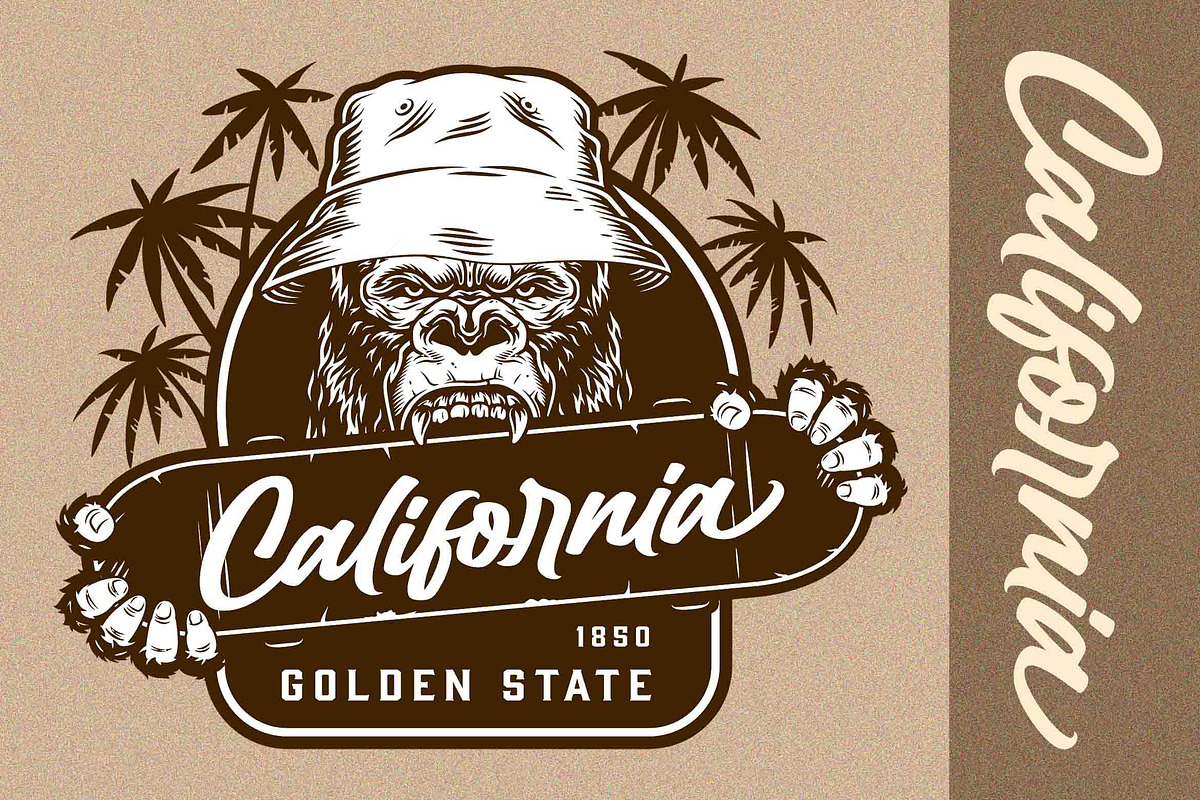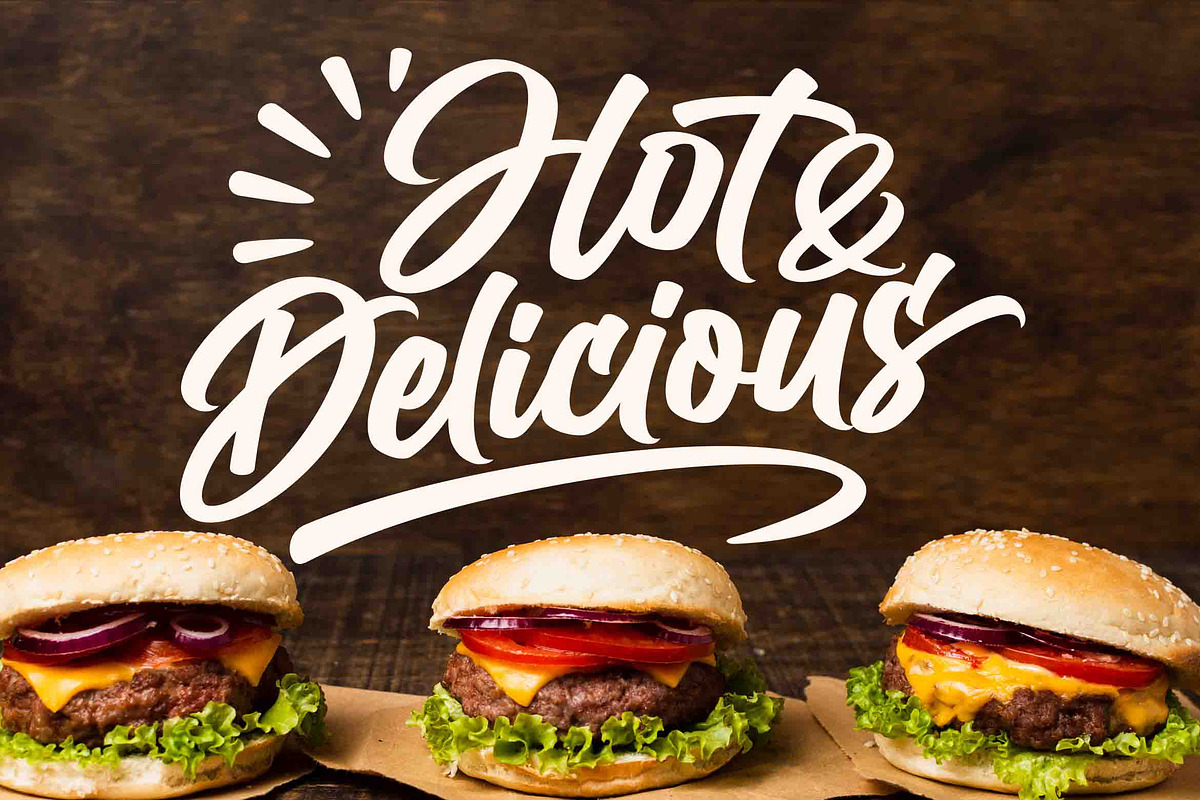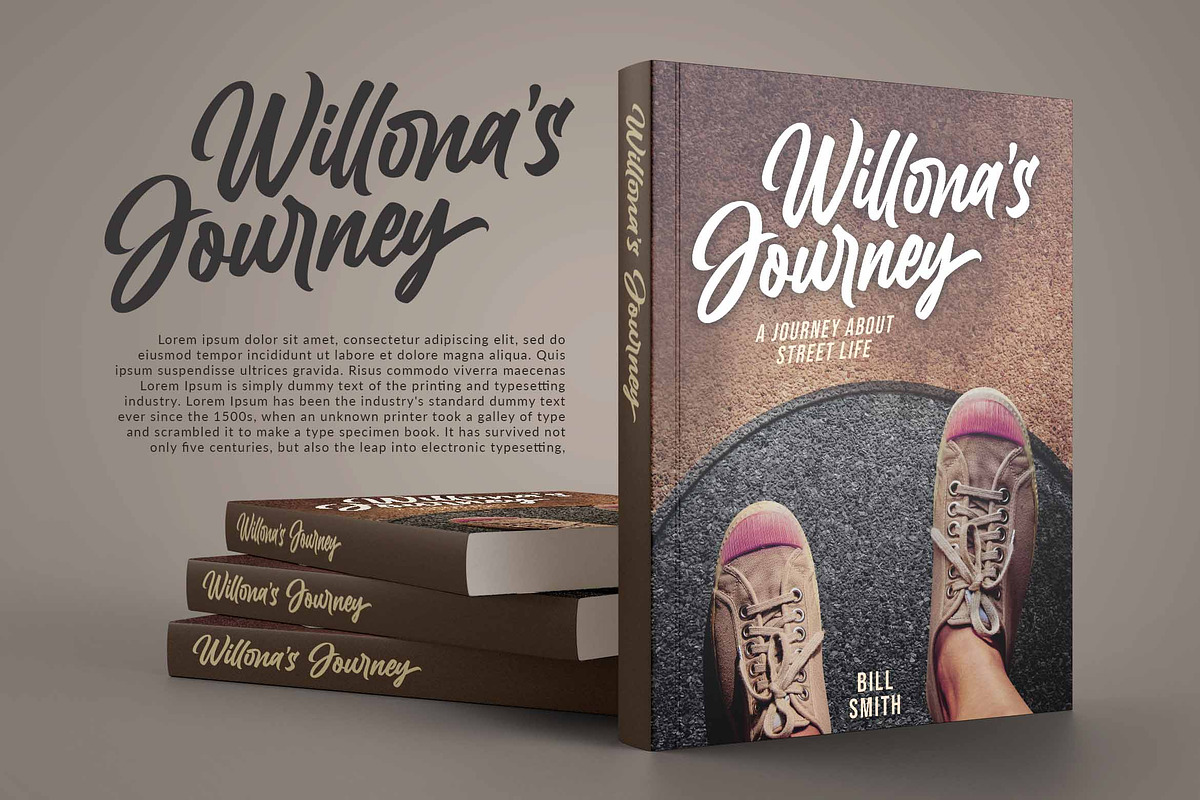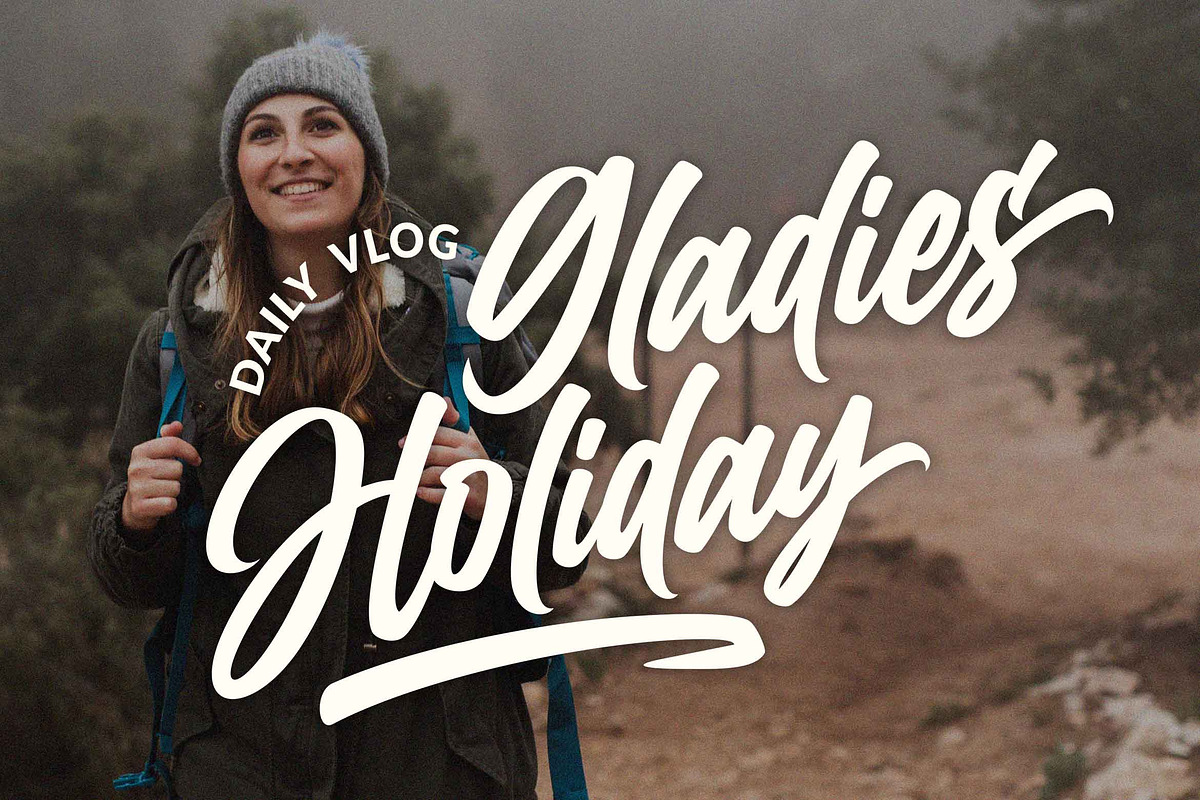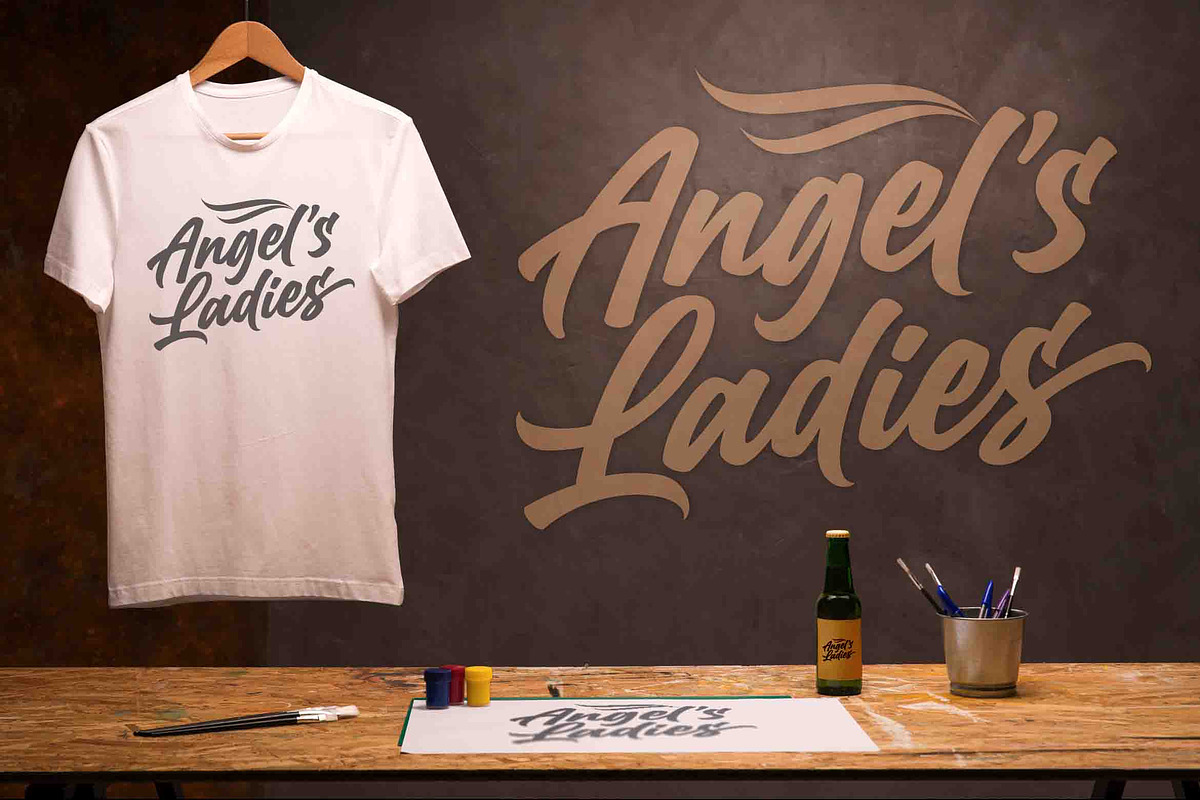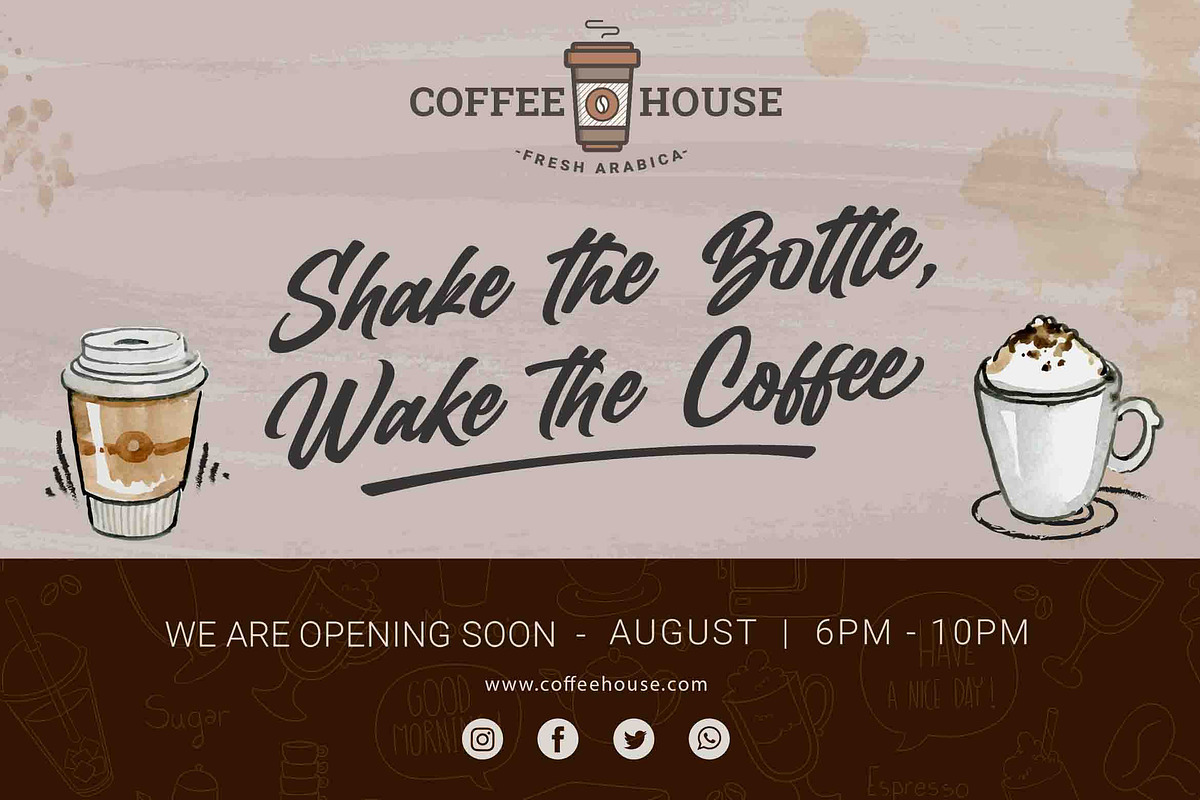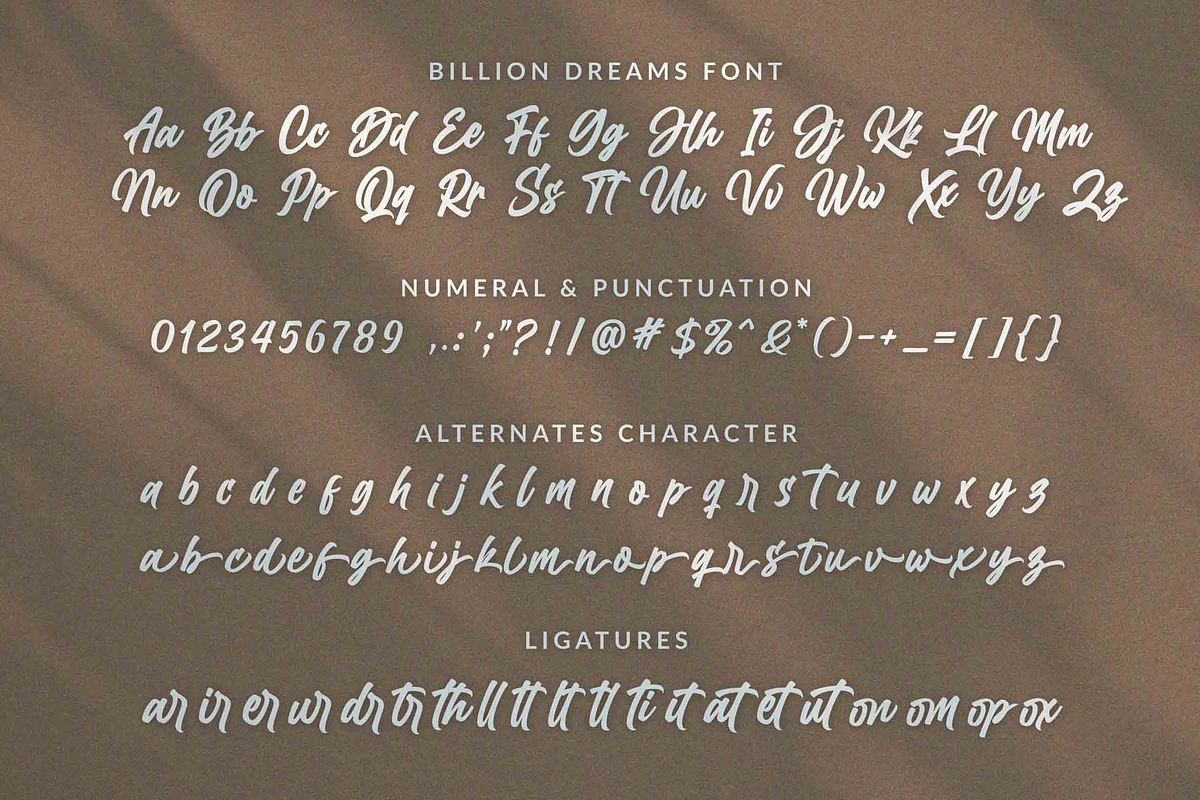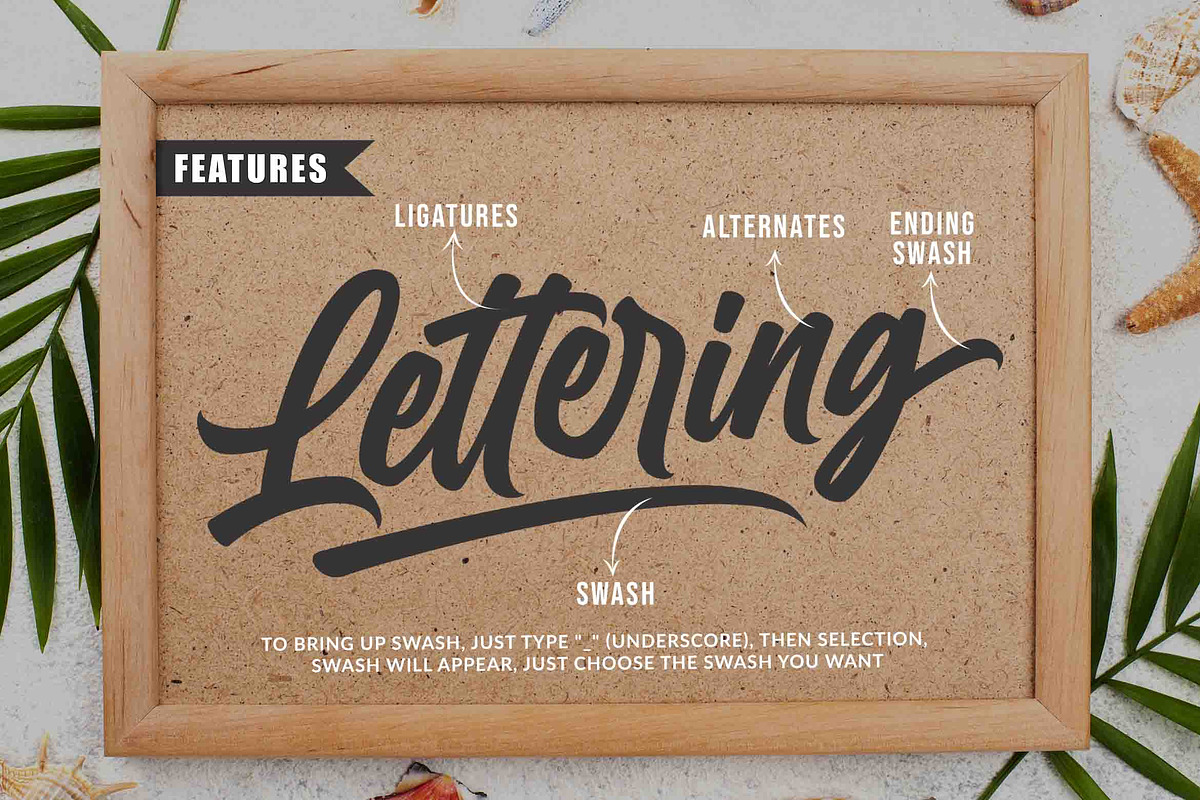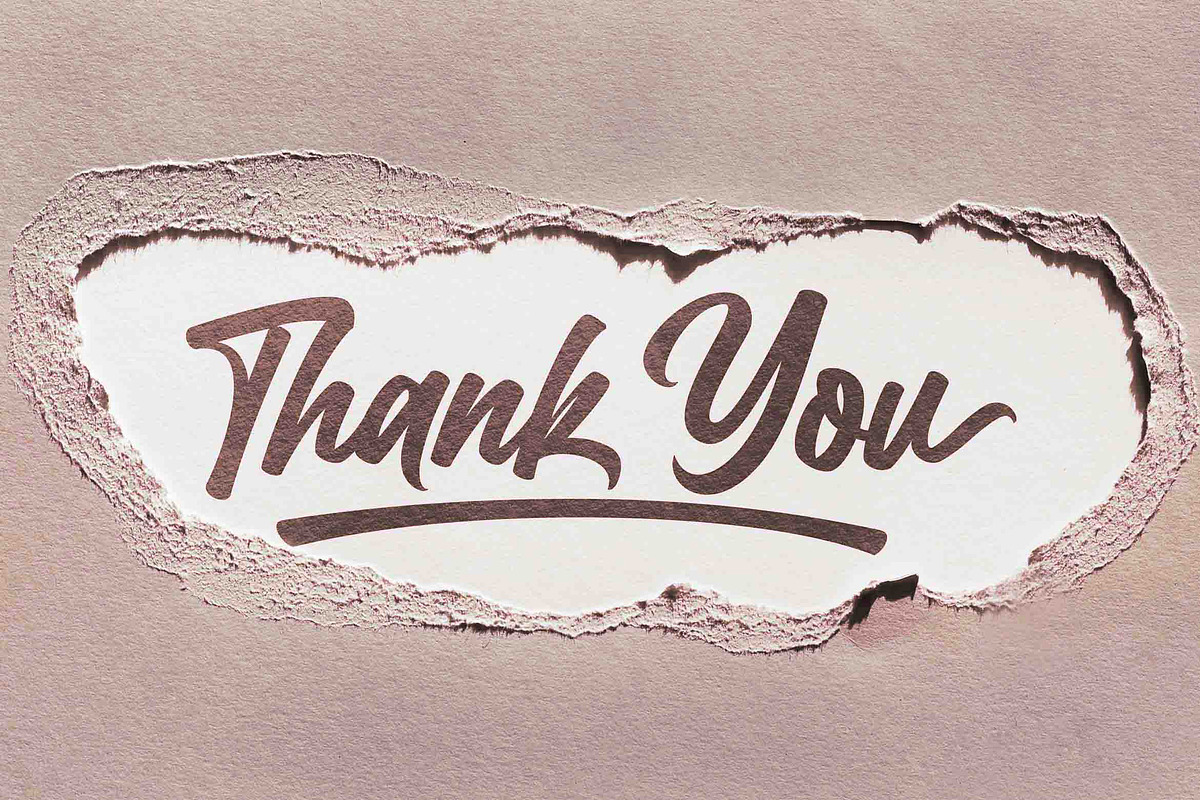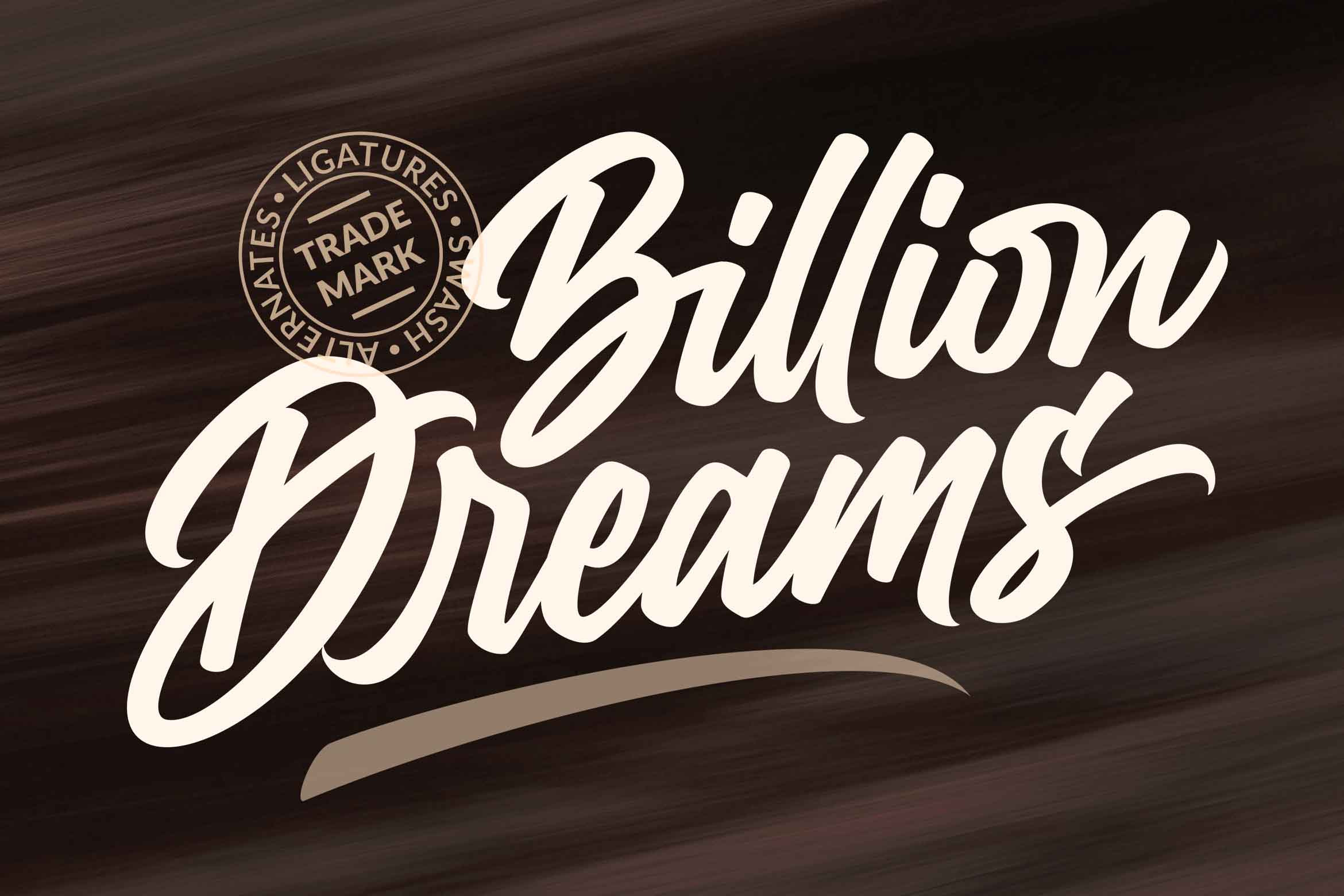
SALE! Billion Dreams / Urban Font
the Billion Dreams Font! This font was created to help you designing logotype or lettering style logo for your Brand or your clients, and you also can use it for designing all of the graphic stuff such as badge, sign, packaging, headline, title, T-shirt/apparel, Poster, etc. The Billion Dreams was designed for personal characters such as strong, confidence, dynamic, readable, Energic, dynamic, etc.